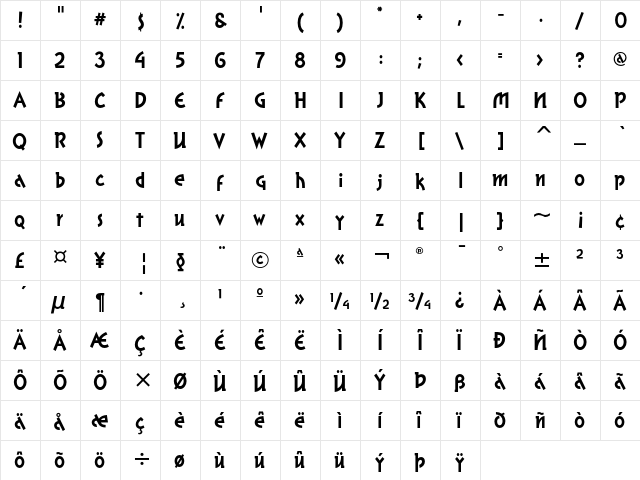
Grapefruit ITC Regular
Design Context for Grapefruit ITC Typeface
Grapefruit ITC is a composed and adaptable typeface that performs quietly and consistently across a wide range of design contexts.
Pro Tip: Pair Grapefruit ITC with a font of contrasting weight or personality to build a more expressive typographic hierarchy.